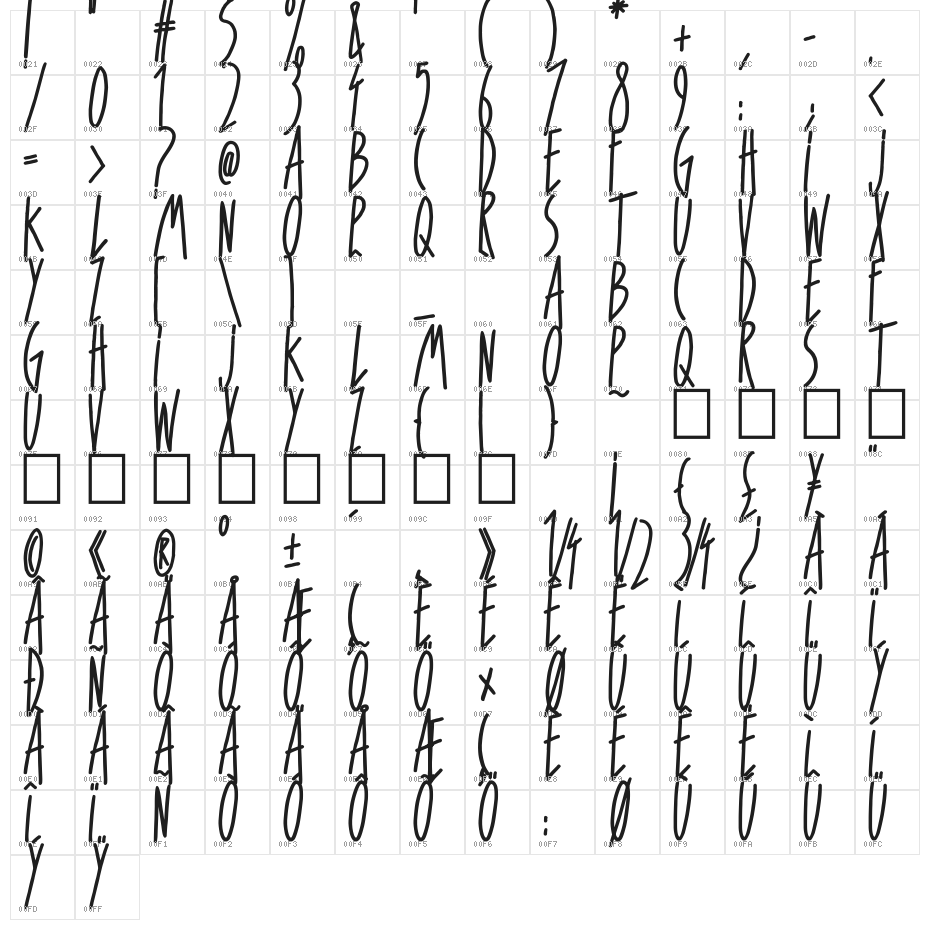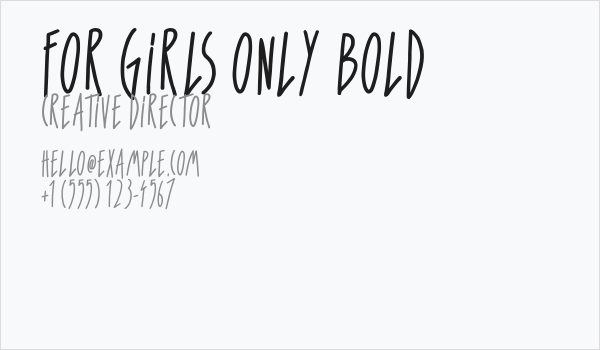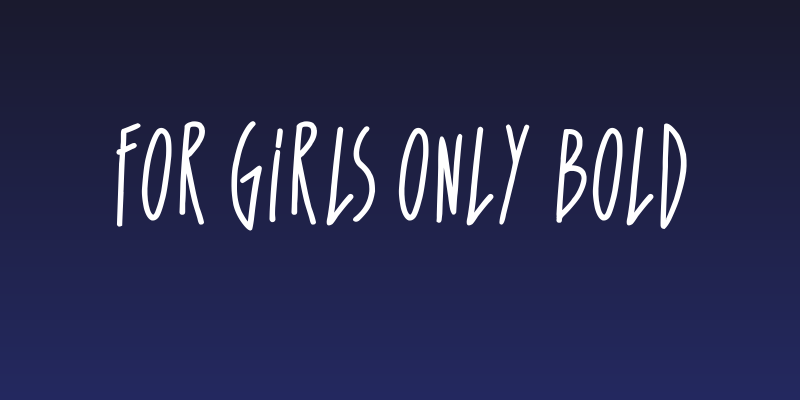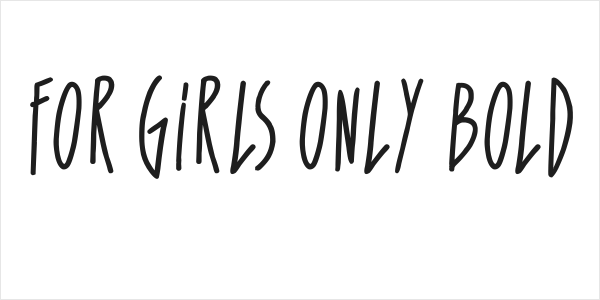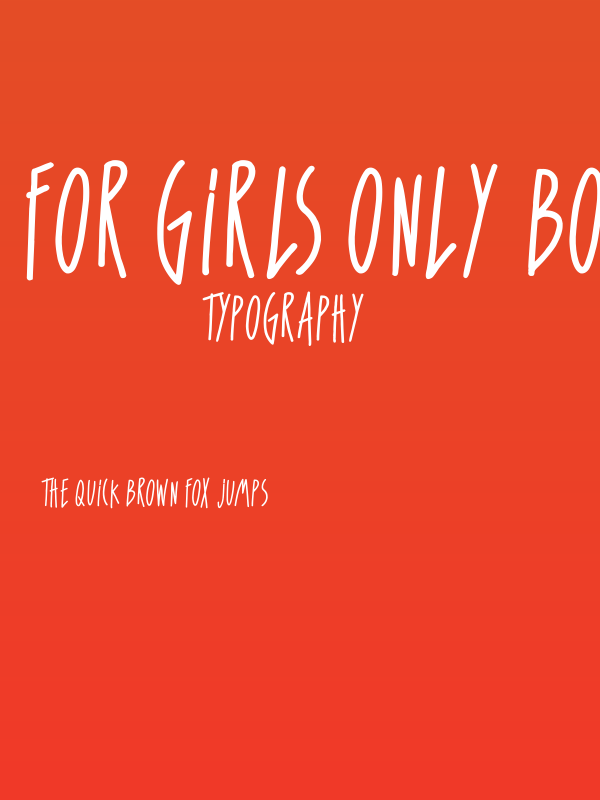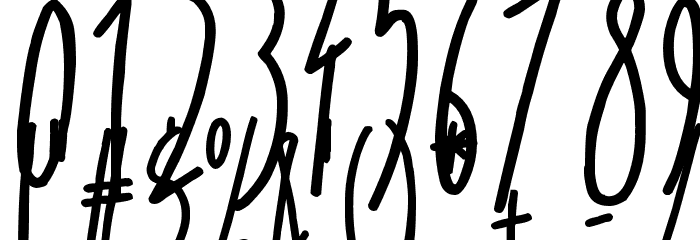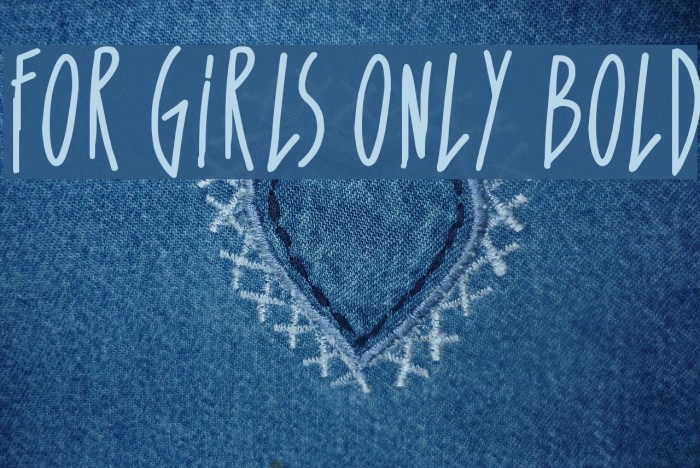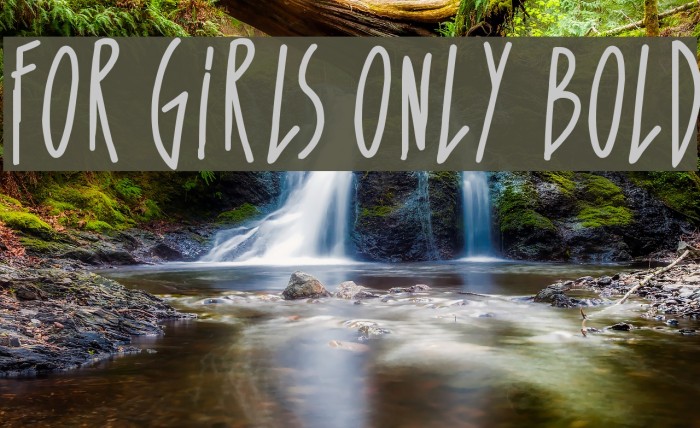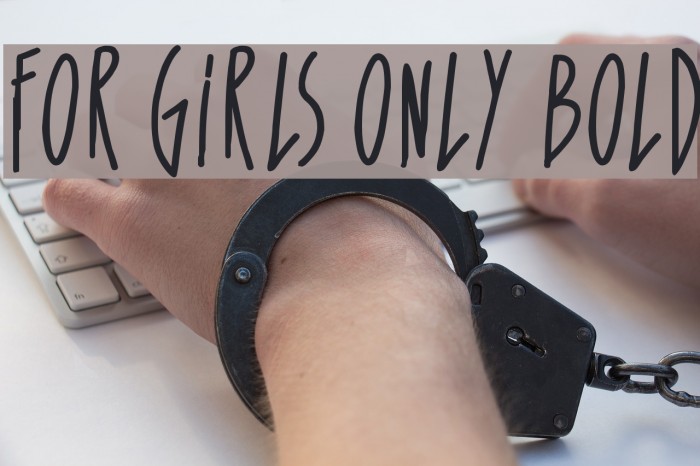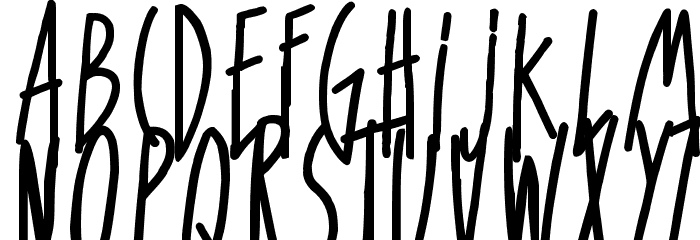
For Girls Only Bold Font
This font features a bold, handwritten style with a playful and energetic appearance. The letters are tall and narrow, with a slight slant that adds a dynamic feel. The strokes are thick and consistent, giving the font a strong presence. The uppercase and lowercase letters maintain a cohesive look, while the numbers and special characters integrate seamlessly. This font's unique character is ideal for projects that require a personal touch or a youthful vibe.
| Overall Style | Playful, Energetic |
| Proposed Projects | Ideal for children's book covers, playful branding, social media graphics, and event invitations. |